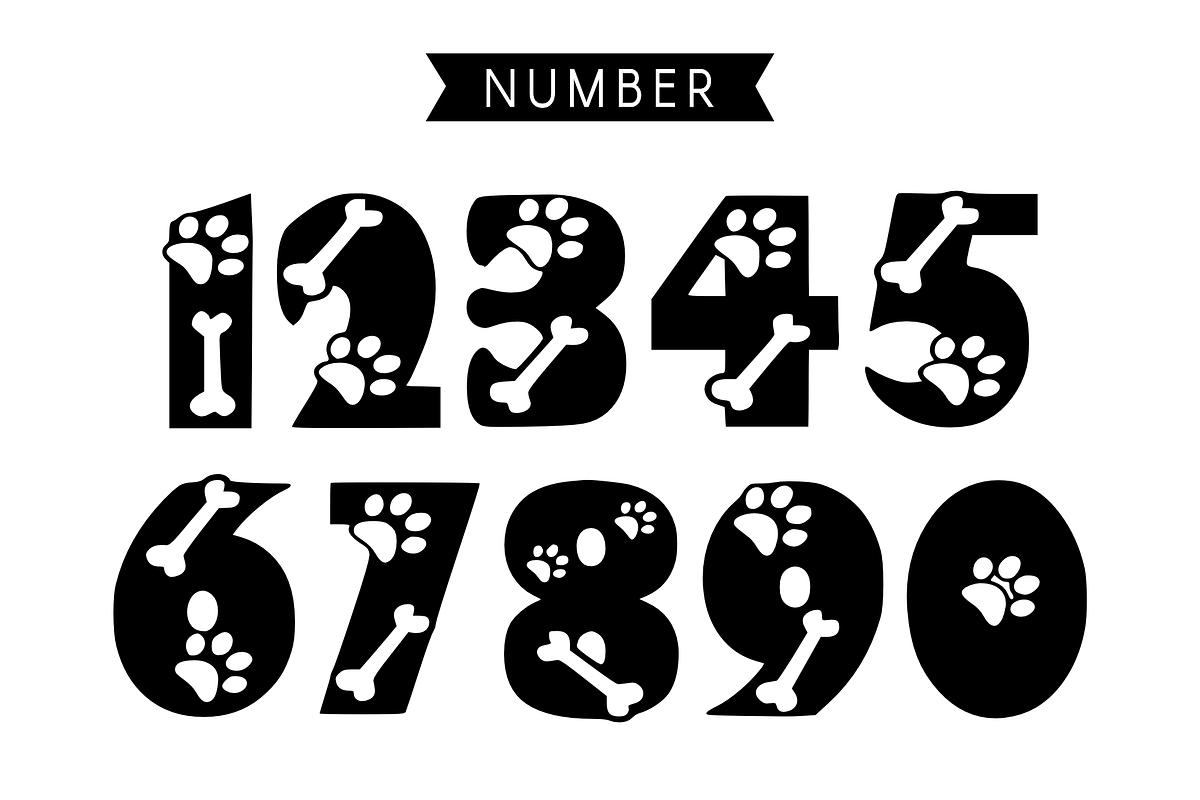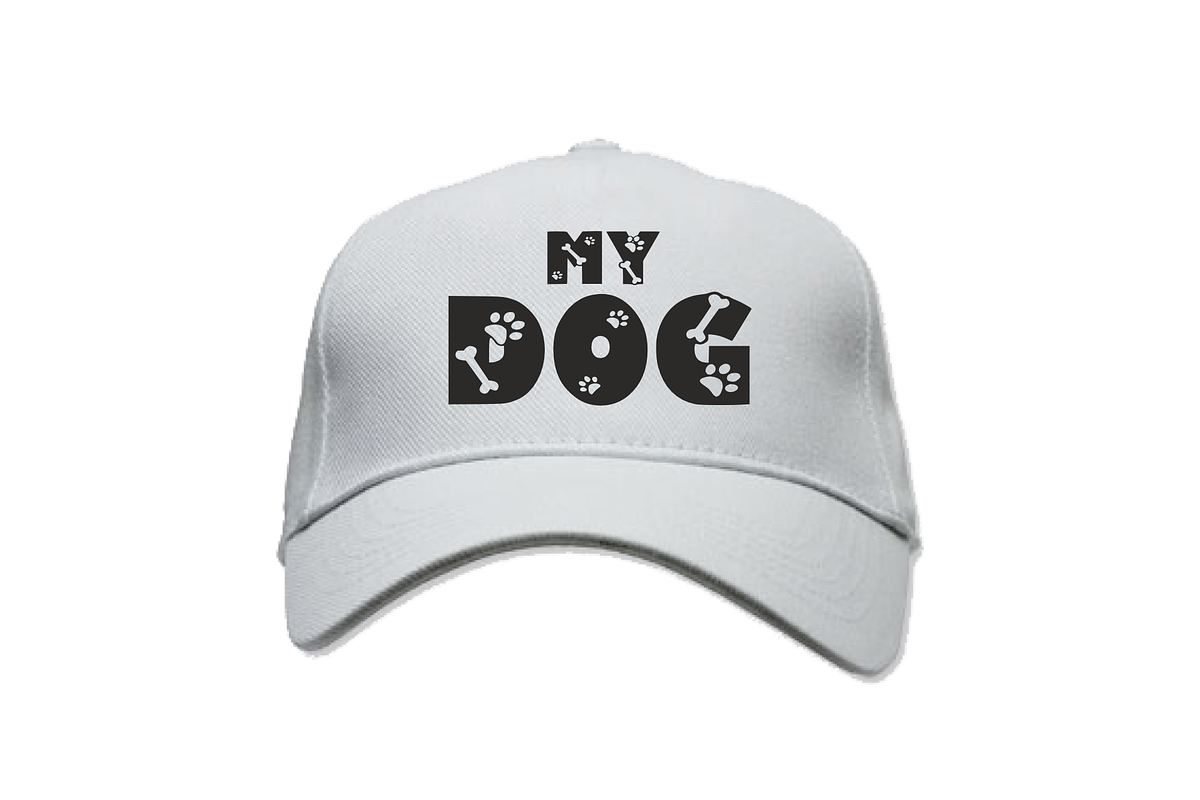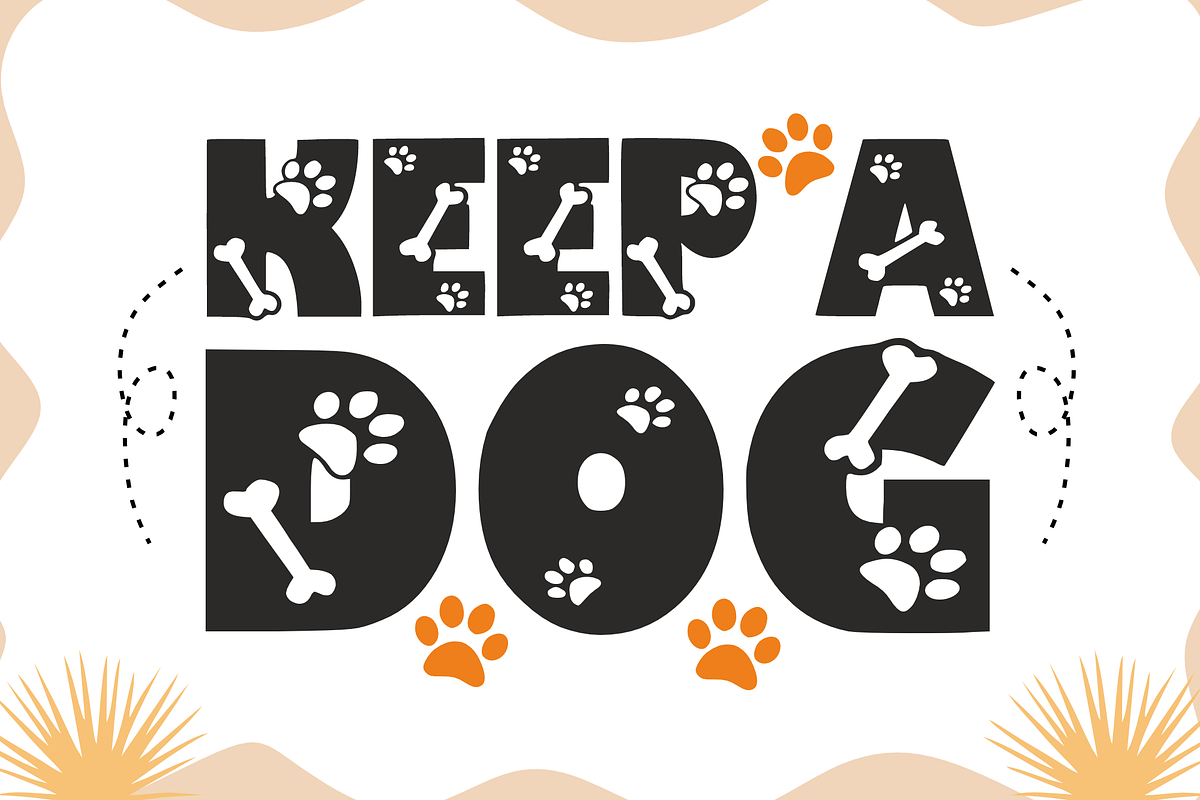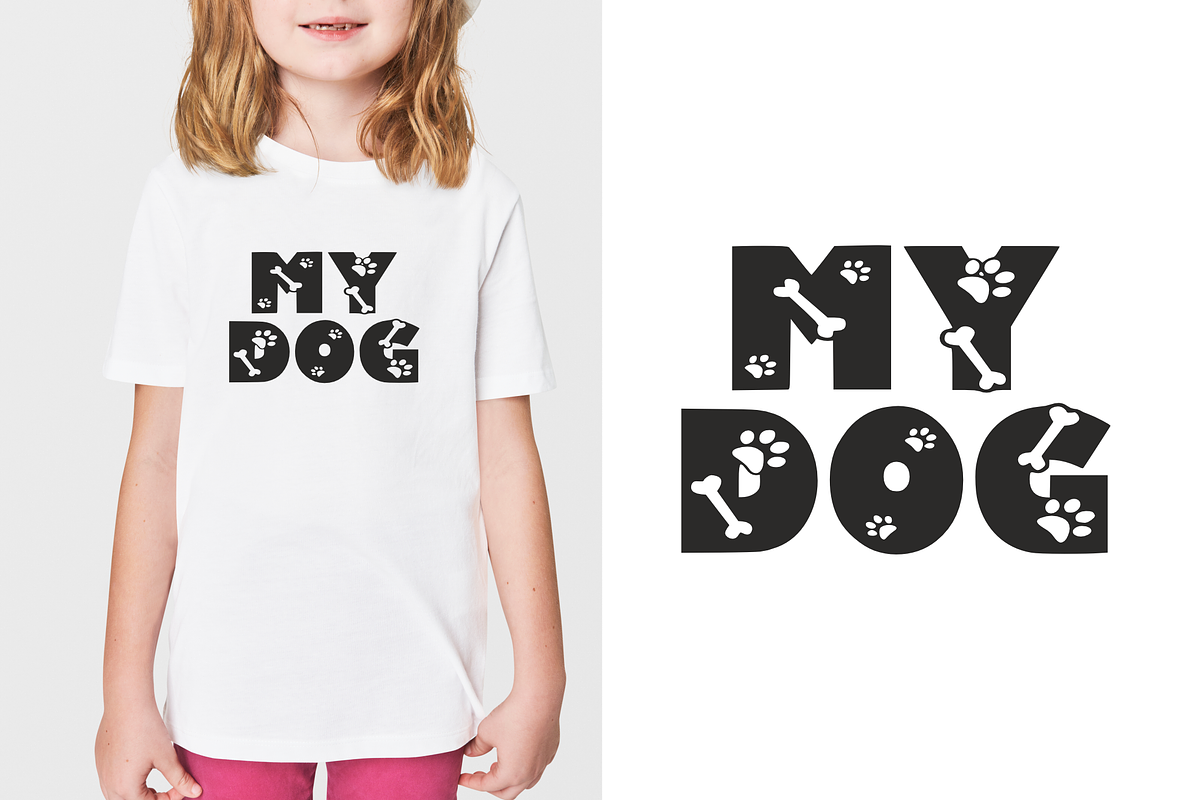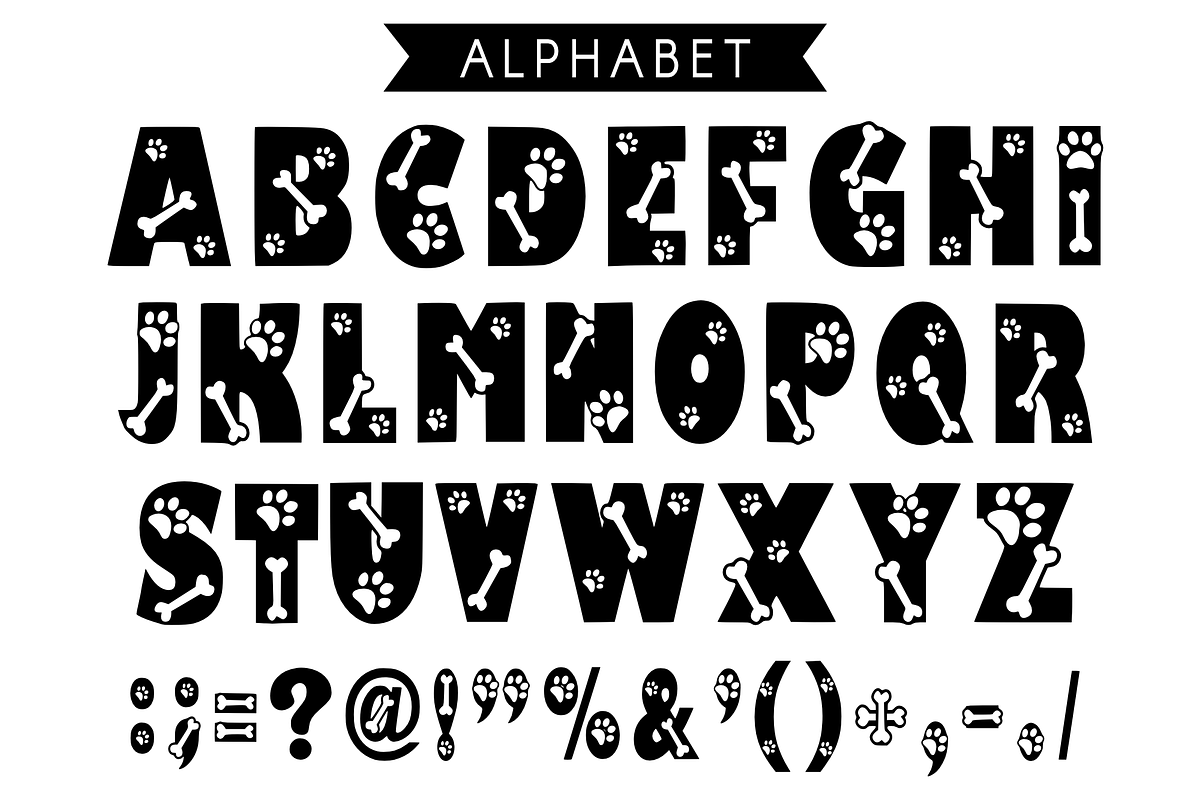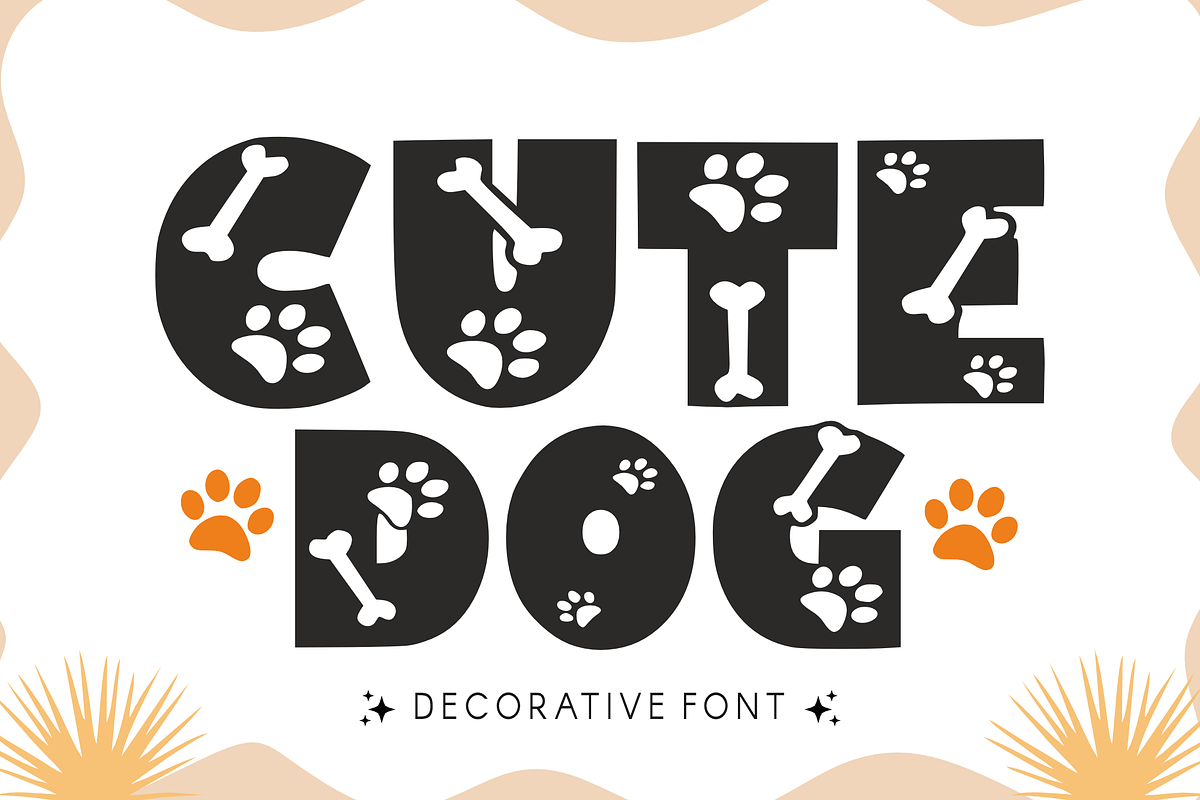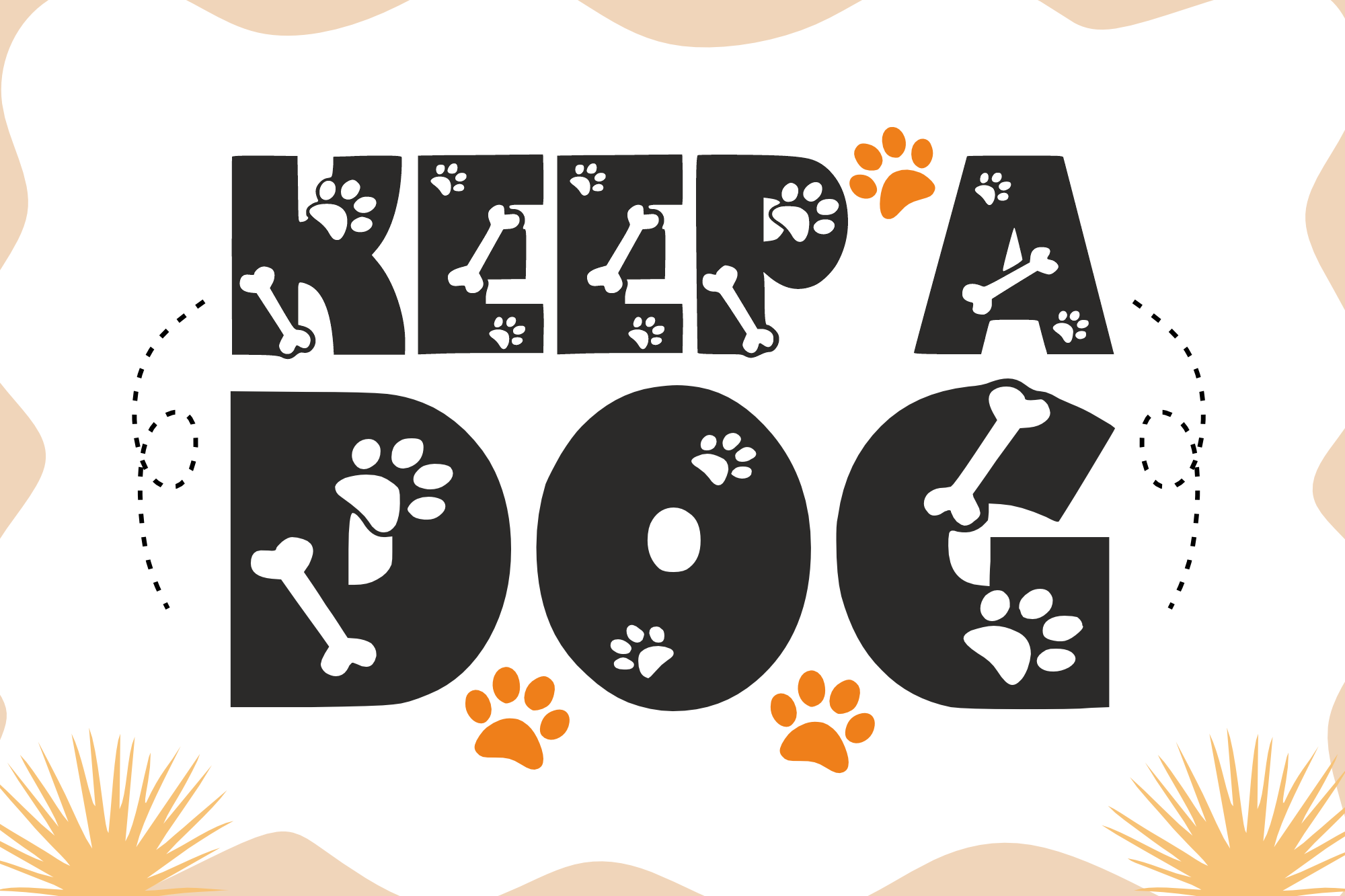
Keep a Dog Fonts - Dog Style Font
Unveiling “Keep a Dog”, an exclusively imaginative Decorative font. Each alphabet bristles with engaging dog bones and adorable paws shapes, offering an element of fun and playfulness. Making its mark everywhere from print designs like tees and banners, to invitations and digital designs, this font also breathes joy into everyday items including mugs and tote bags. Step into a world where text can wag its tail with “Keep a Dog” font.